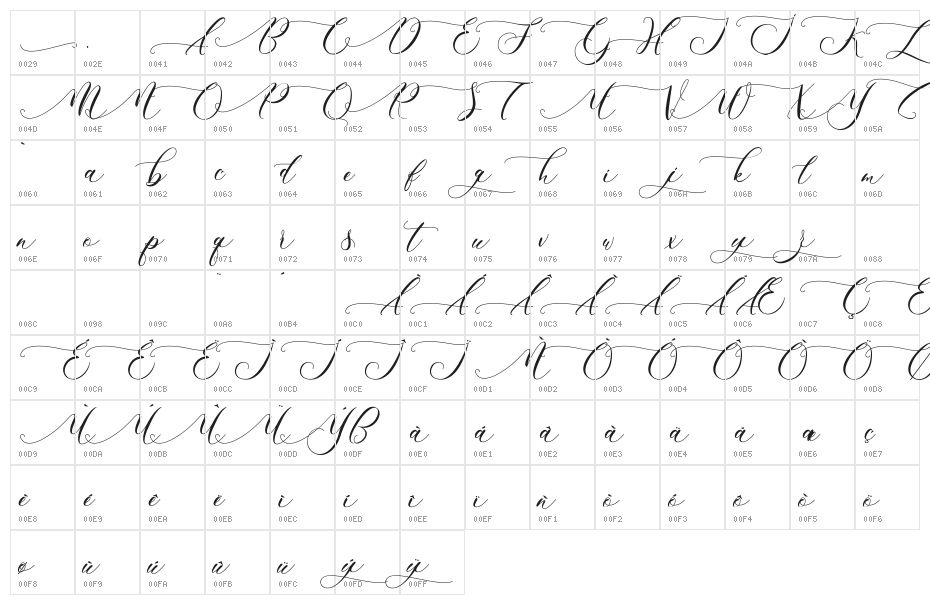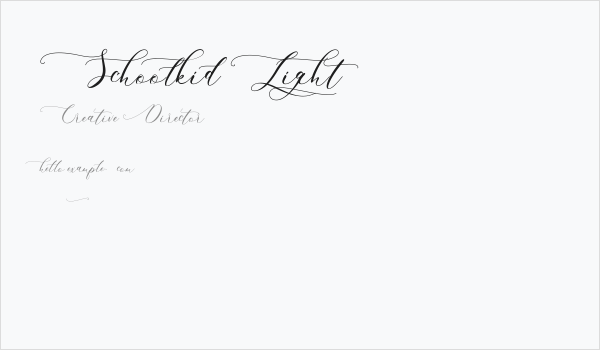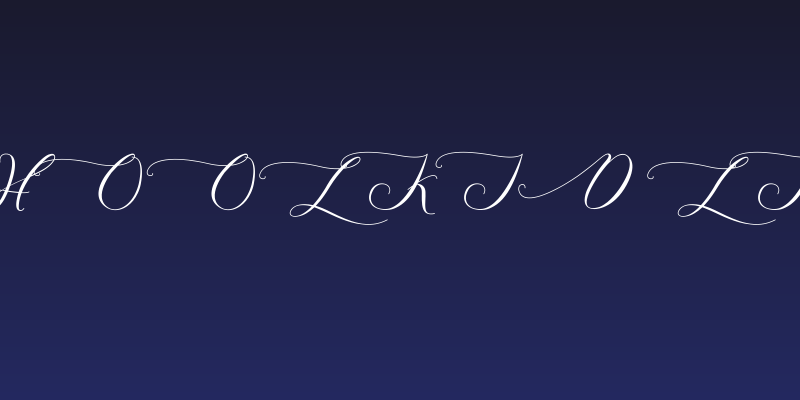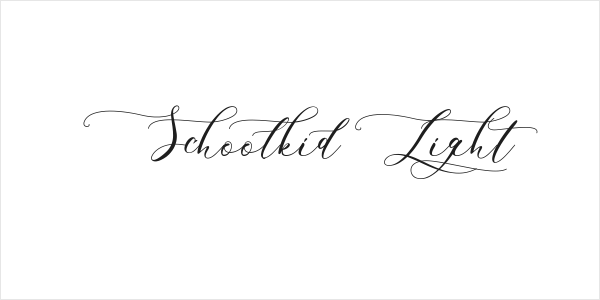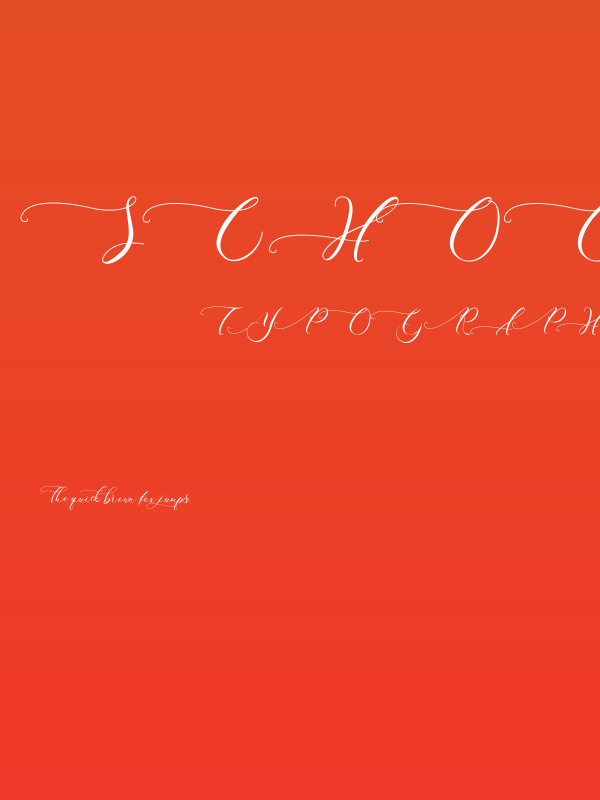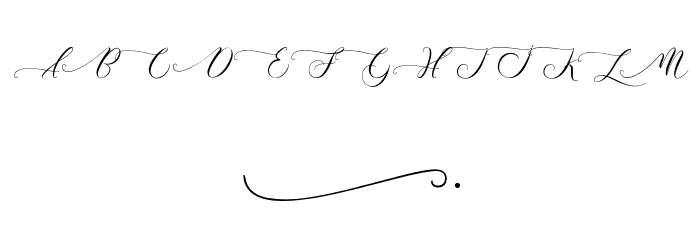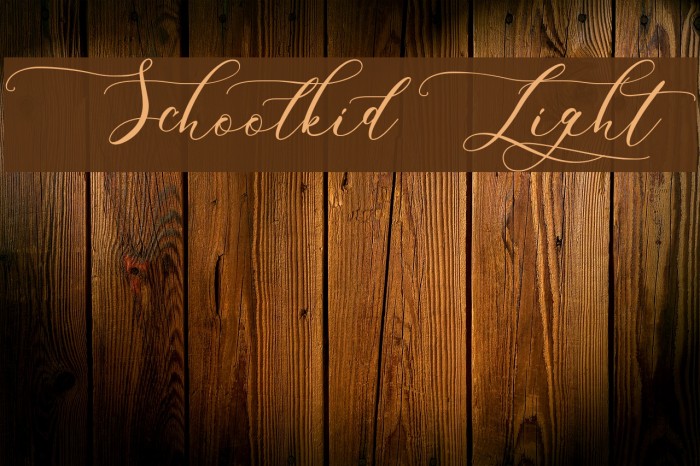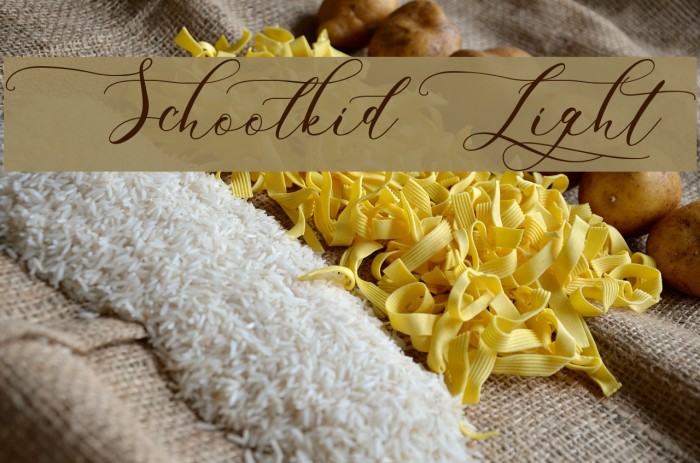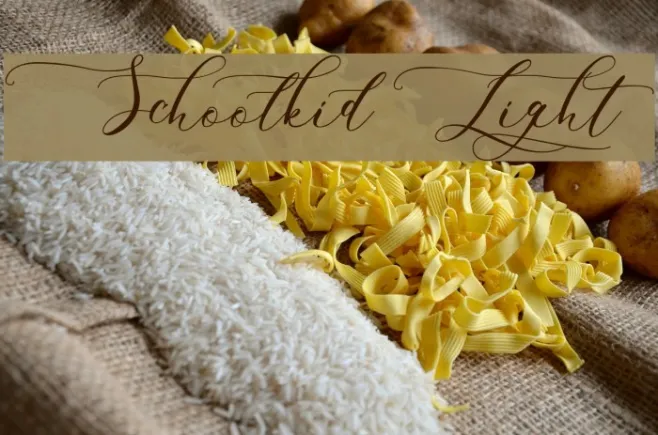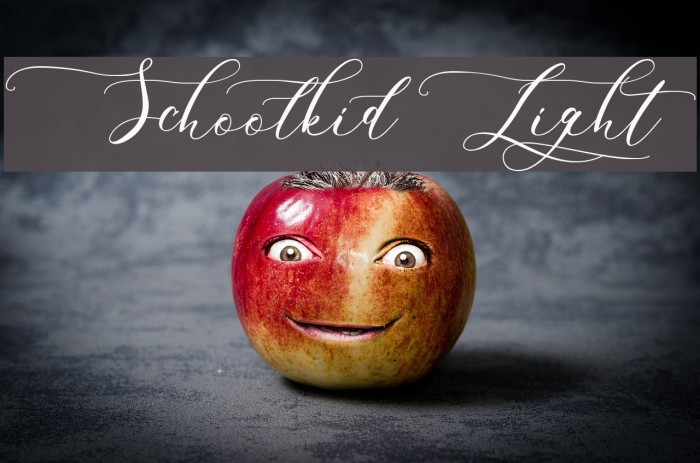
Schoolkid Light Font
Schoolkid Light Description
This font exudes elegance and sophistication with its flowing, cursive style. The letters are intricately designed with graceful loops and swirls, creating a sense of fluidity and movement. The uppercase letters are particularly ornate, featuring extended flourishes that add a touch of drama. The lowercase letters maintain a consistent style, with smooth connections between characters that enhance readability. The overall design is reminiscent of classic calligraphy, making it suitable for projects that require a touch of refinement and class.
| Proposed Projects | Ideal for wedding invitations, formal event programs, elegant branding, and decorative certificates. |